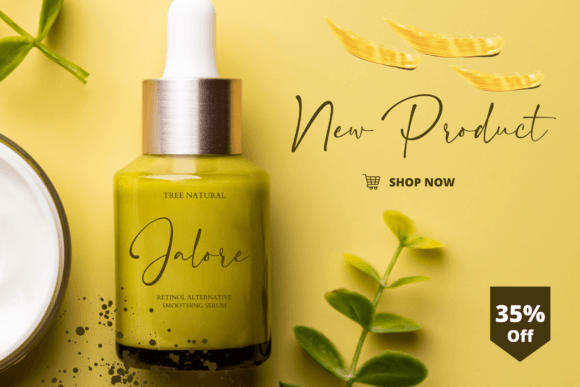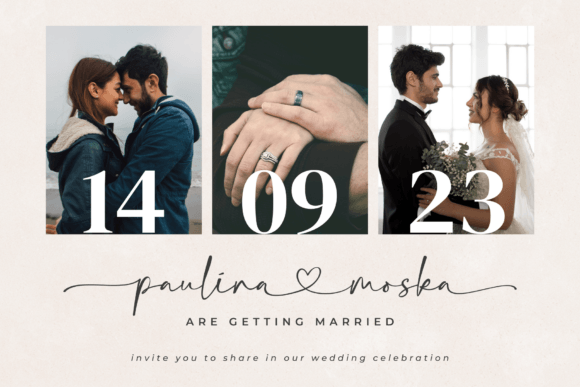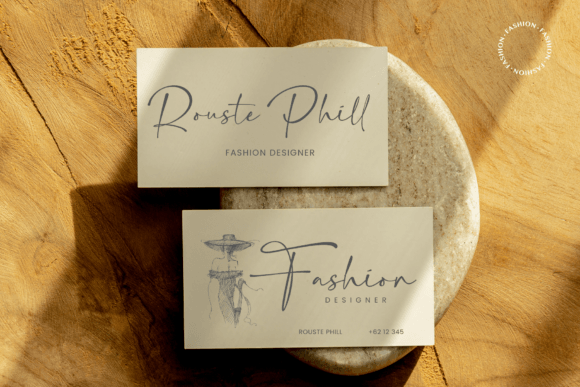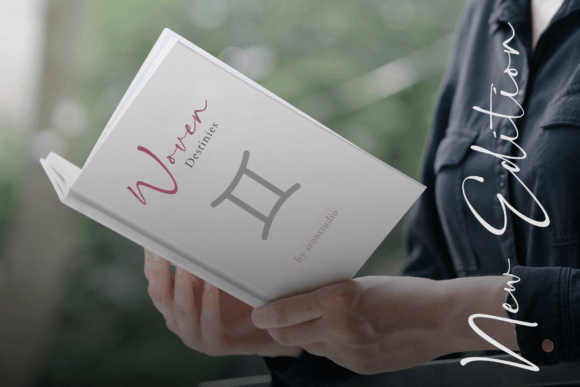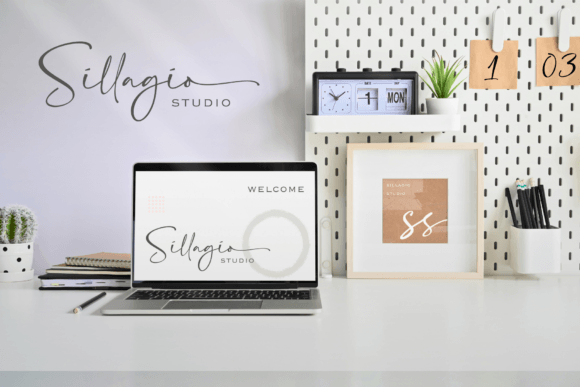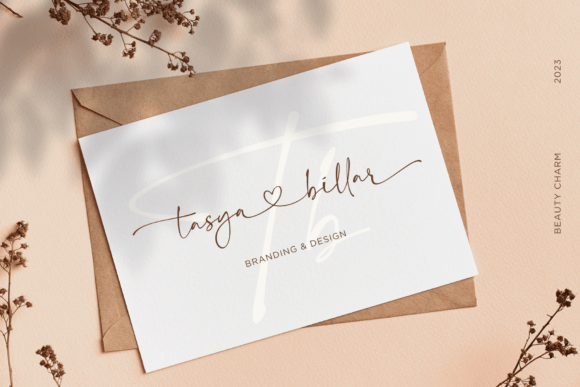
Introducing Beauty Charm: The Ultimate Romantic Font for Designers and Crafters
In the world of typography, few fonts capture the essence of love and affection as beautifully as “Beauty Charm.” This charming romantic font is designed to evoke emotions of warmth and tenderness, making it the perfect choice for projects that celebrate love, relationships, and special occasions. With its graceful letterforms and delicate curves, “Beauty Charm” adds a touch of elegance and intimacy to any design, making it a must-have for designers and crafters alike.
The Perfect Font for Romantic Projects
Whether you’re creating wedding invitations, love letters, or any project that requires a romantic touch, “Beauty Charm” is the ideal font to convey your message. Its versatility allows it to be used in various creative contexts, from branding to social media graphics, and its unique charm will set your designs apart from the rest. The font’s romantic spirit is sure to captivate your audience and leave a lasting impression.
Key Features of Beauty Charm Font
- Romantic and Elegant Design: “Beauty Charm” boasts a beautiful, hand-crafted design that exudes romance and sophistication. Its delicate curves and flowing lines make it perfect for projects that require a touch of elegance.
- Versatile and Adaptable: This font is not just limited to romantic projects; its versatility allows it to be used in a wide range of creative contexts, from branding and advertising to social media graphics and more.
- Easy to Read and Understand: Despite its elegant design, “Beauty Charm” is easy to read and understand, making it perfect for body text and captions.
- Scalable and Editable: The font is highly scalable and editable, allowing you to adjust its size and style to fit your design needs.
Design Inspiration with Beauty Charm
“Beauty Charm” is more than just a font; it’s a design inspiration. Its romantic spirit can be used to create stunning designs that capture the essence of love and relationships. Here are a few design ideas to get you started:
- Wedding Invitations: Use “Beauty Charm” to create beautiful wedding invitations that set the tone for a romantic and memorable day.
- Love Letters: Add a touch of elegance and intimacy to your love letters with this charming font.
- Social Media Graphics: Use “Beauty Charm” to create stunning social media graphics that celebrate love and relationships.
- Branding and Packaging: Incorporate this font into your branding and packaging design to add a touch of romance and sophistication.
Tips for Using Beauty Charm Font
To get the most out of “Beauty Charm,” here are a few tips to keep in mind:
- Pair it with Other Fonts: Experiment with pairing “Beauty Charm” with other fonts to create a unique and visually appealing design.
- Adjust Font Size and Style: Don’t be afraid to adjust the font size and style to fit your design needs.
- Use it in Combination with Images: Use “Beauty Charm” in combination with images to create stunning designs that capture the essence of love and relationships.
In conclusion, “Beauty Charm” is a charming romantic font that is sure to capture the essence of love and affection. Its elegant design, versatility, and romantic spirit make it the perfect choice for designers and crafters who want to create stunning designs that celebrate love and relationships. With its wide range of applications and easy-to-use design, “Beauty Charm” is a must-have font for any designer or crafter looking to add a touch of romance and sophistication to their designs.